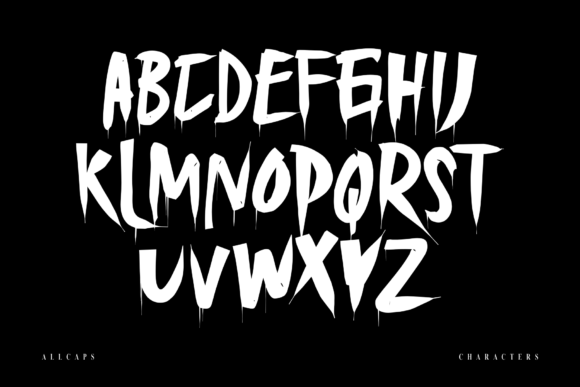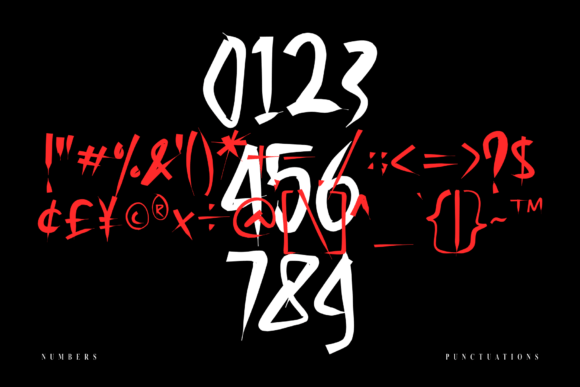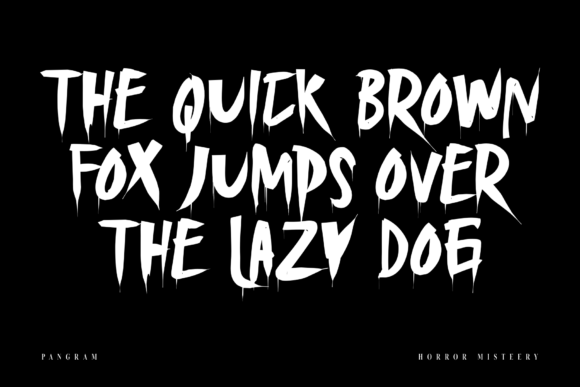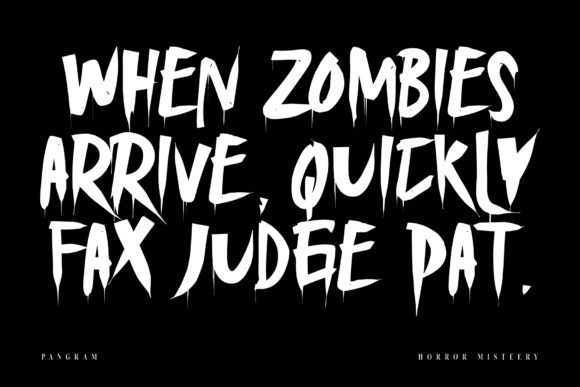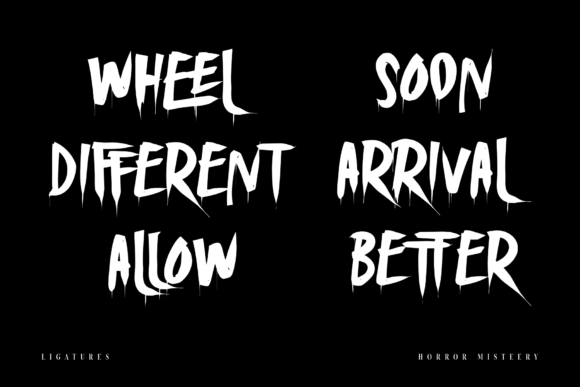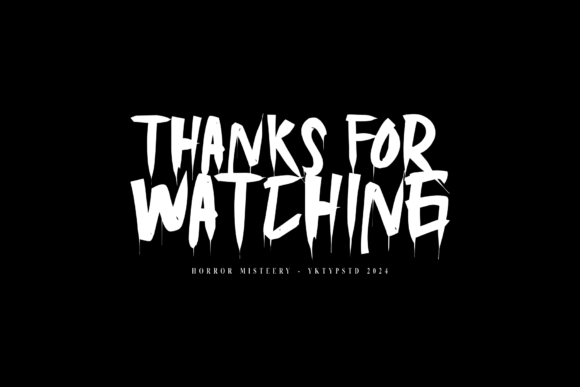
Introduction to Horror Misteery Font
Unveiling the chilling allure of the Horror Misteery font, an eerily captivating display typeface, intricately crafted to incite an unshakeable foreboding.
This beautifully spine-chilling textual design is an uncanny fit for hauntingly themed creations, suspense-filled horror movie publicity material, and any endeavor in need of an ethereal, spine-tingling ambiance Dive into the shadow realm, where fear and suspense rule, with the profound intensity of the Horror Misteery font.